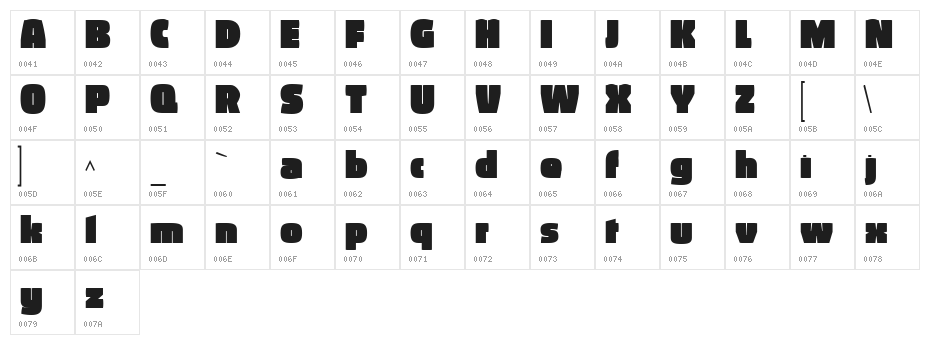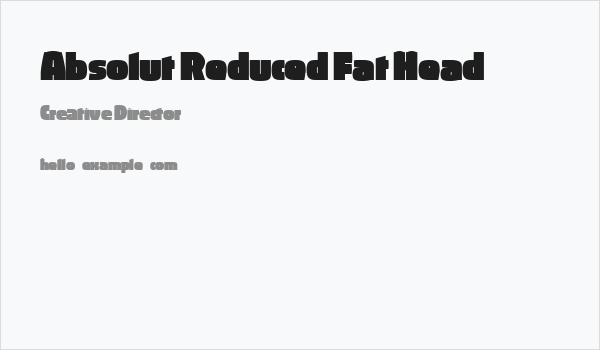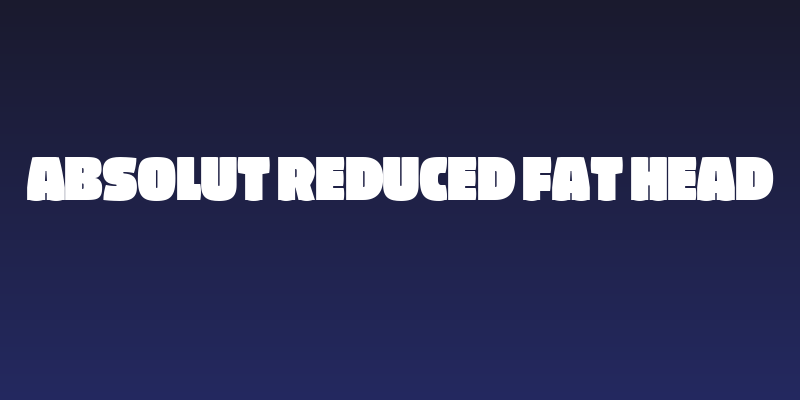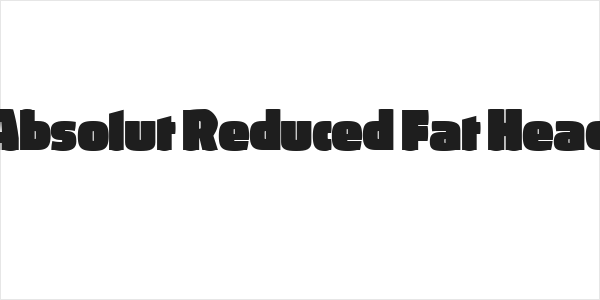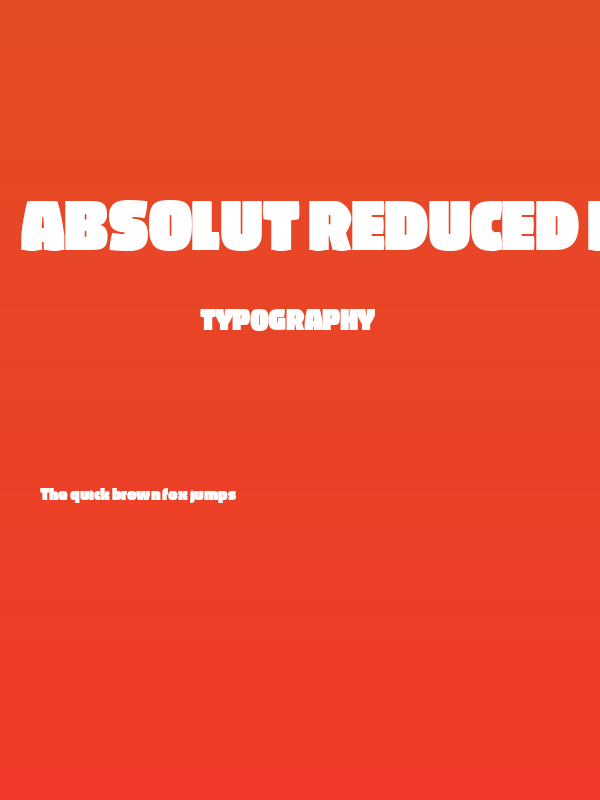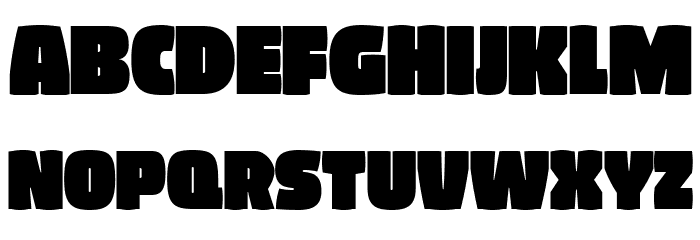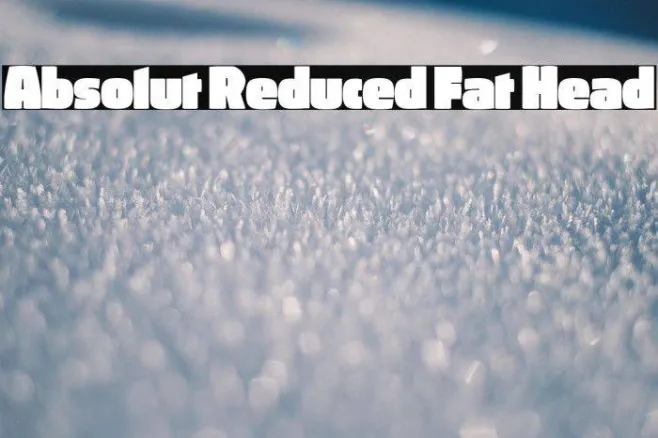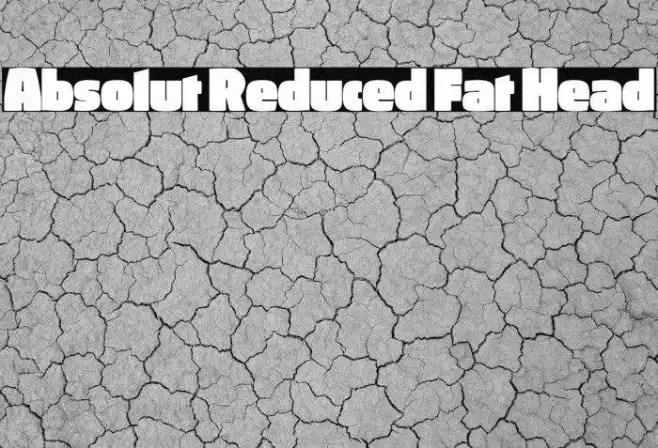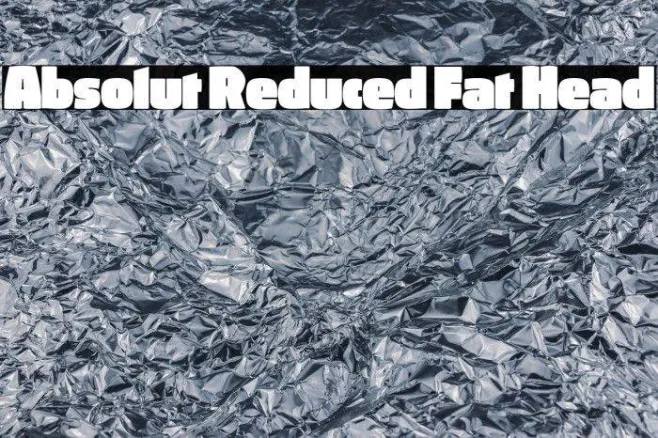
Absolut Reduced Fat Head Font
This font features a bold and robust design with thick, block-like characters that convey a strong presence. The letters are uniformly wide, creating a sense of stability and confidence. The rounded edges soften the overall look, adding a touch of approachability to its otherwise commanding appearance. The uppercase and lowercase letters maintain a consistent style, ensuring readability and cohesion across different text sizes. This font's unique style makes it suitable for attention-grabbing headlines and impactful designs.
| Proposed Projects | Ideal for branding, posters, and headlines where a strong visual impact is needed. |